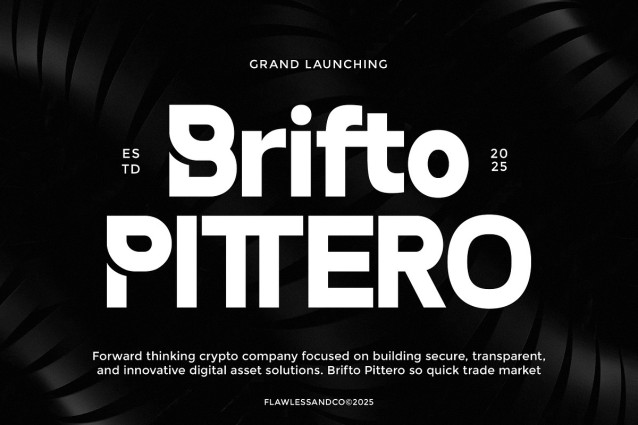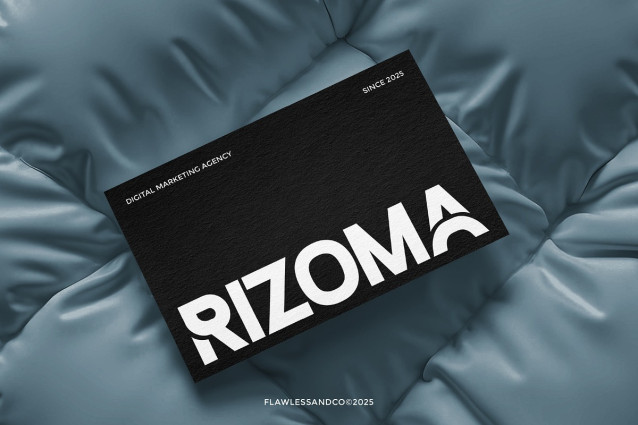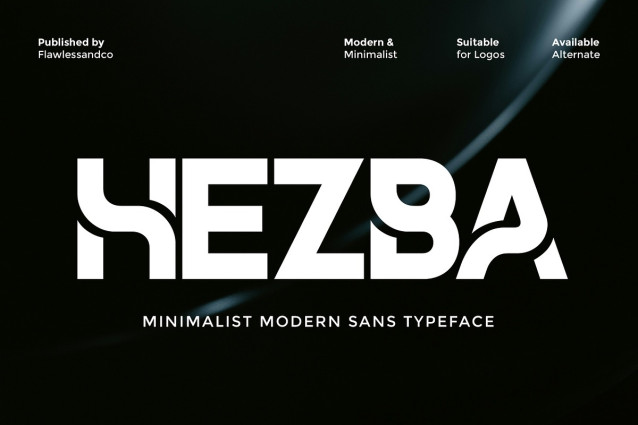
Hezba Font
Hezba Font is a modern sans serif typeface designed with a clean, minimalist, and contemporary approach. Its sharp structure, balanced proportions, and smooth curves make Hezba highly versatile and easy to read across various design applications.